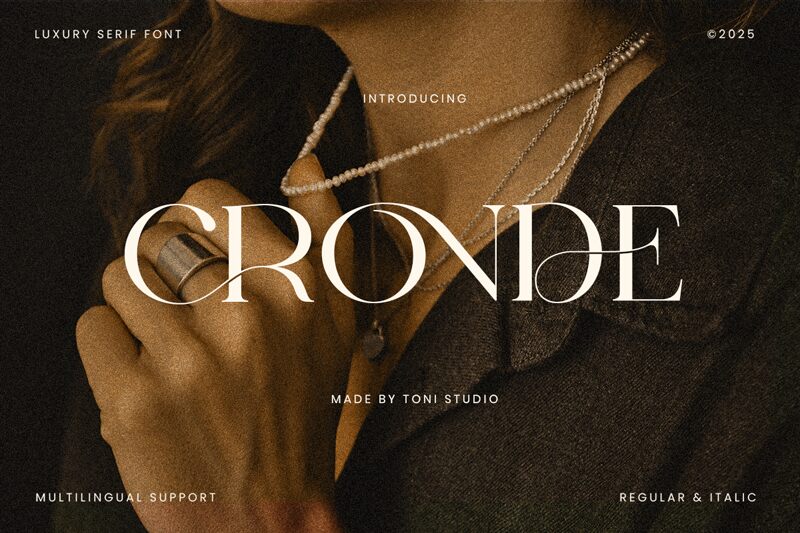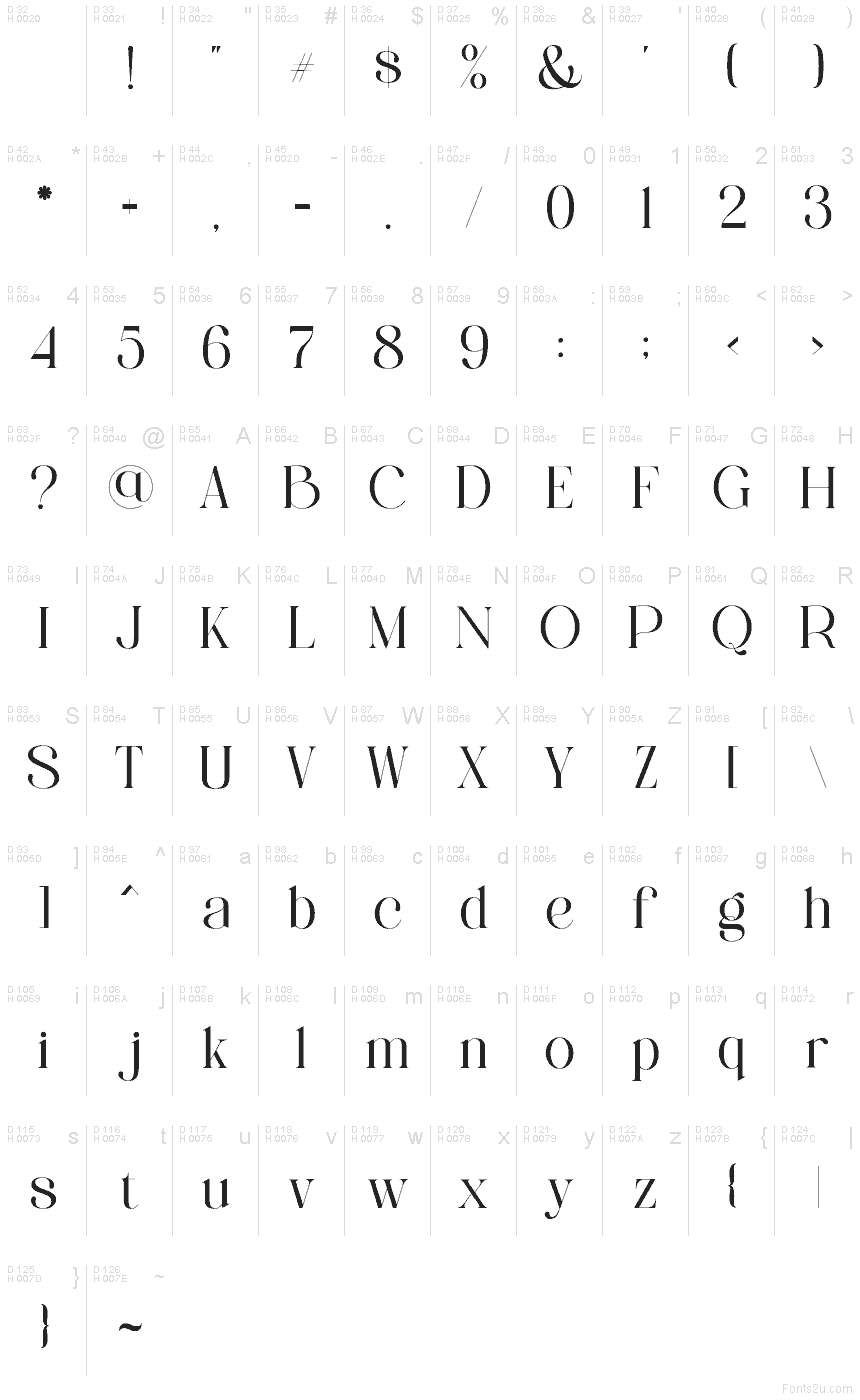
CRONDE
Cronde font by ToniStudio is a free modern serif typeface. Its razor-fine hairlines meet sculpted, inky strokes, giving each letter a cut-glass snap that feels elegant without turning brittle. The tall rhythm and knife-edged serifs create a sleek, editorial voice that holds attention in a heartbeat.
Using Cronde, headlines glide and logos feel couture—think fashion branding, magazine covers, beauty packaging, luxury posters, book jackets, and upscale restaurant menus. This free font shines when set large with a touch of tracking to let those slender details breathe. Simple pairing tip: balance Cronde’s polish with a clean neo-grotesque sans for body copy.